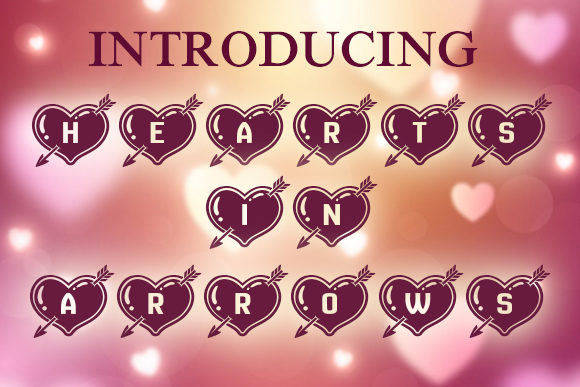
Hearts in Arrows Font
Font Name : Hearts in Arrows Font
Author : vladimirnikolic
Dive into the enchanting realm of Hearts in Arrows, a decorative typeface that captivates the heart with its playful charm. This captivating font, lovingly crafted by the esteemed vladimirnikolic, is a symphony of flowing strokes and whimsical curves. Its essence is the epitome of romance, making it the perfect companion for expressing your heartfelt sentiments.
Picture your words adorned in the enchanting embrace of Hearts in Arrows. Each letter dances gracefully upon the page, promising to elevate your designs to breathtaking heights. Its playful spirit adds a touch of whimsy to any creation, making it an ideal choice for posters, banners, and prints that aim to capture the attention of your audience.
Hearts in Arrows possesses an unmatched ability to evoke emotions. Its delicate strokes whisper tales of love and longing, while its playful curves add a spark of joy to every word. Whether you're crafting invitations that promise a magical evening or creating artwork that celebrates the wonders of the heart, Hearts in Arrows is the perfect muse to guide your creative journey.
Step into the world of Hearts in Arrows, where elegance and enchantment intertwine. Let this captivating typeface become your trusted companion, adding a touch of magic to every project you undertake. Embrace the power of Hearts in Arrows and watch your words blossom into captivating masterpieces.